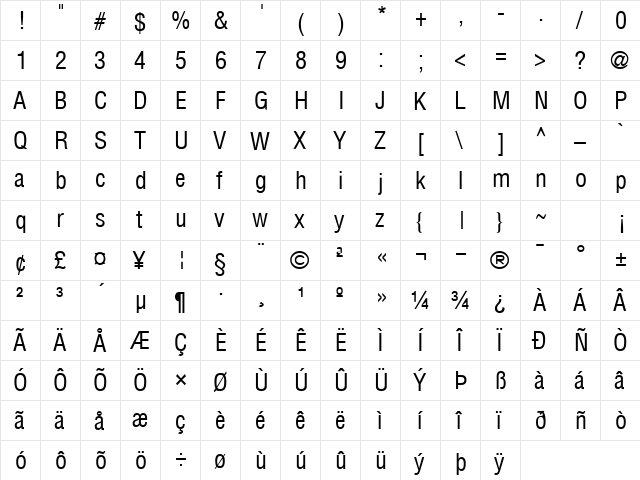
HelvCondensed Regular
Design Context for HelvCondensed Typeface
HelvCondensed takes a measured approach to typography — its balanced proportions and neutral character make it a reliable workhorse for both digital and print work. The condensed width makes it efficient for tight spaces without sacrificing legibility.